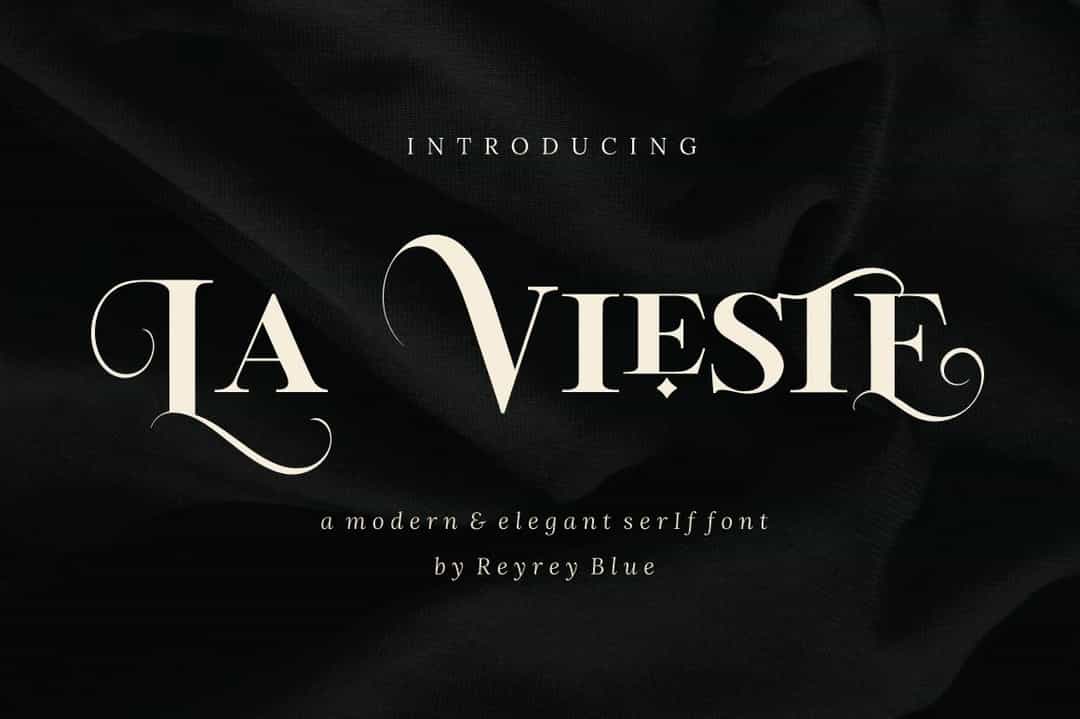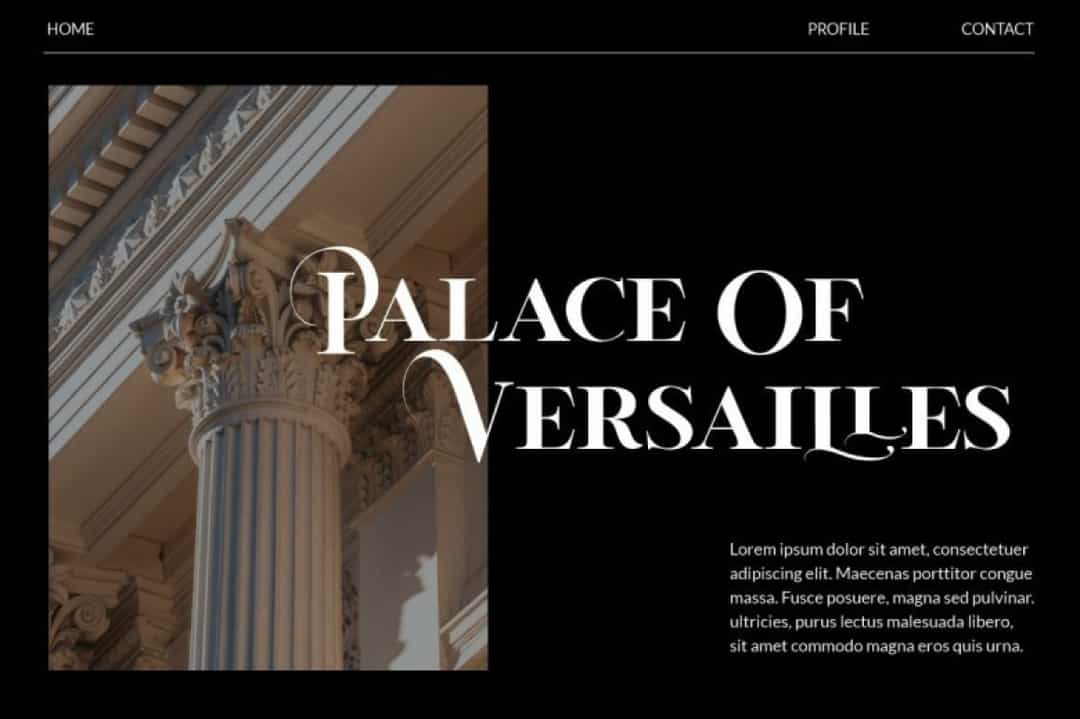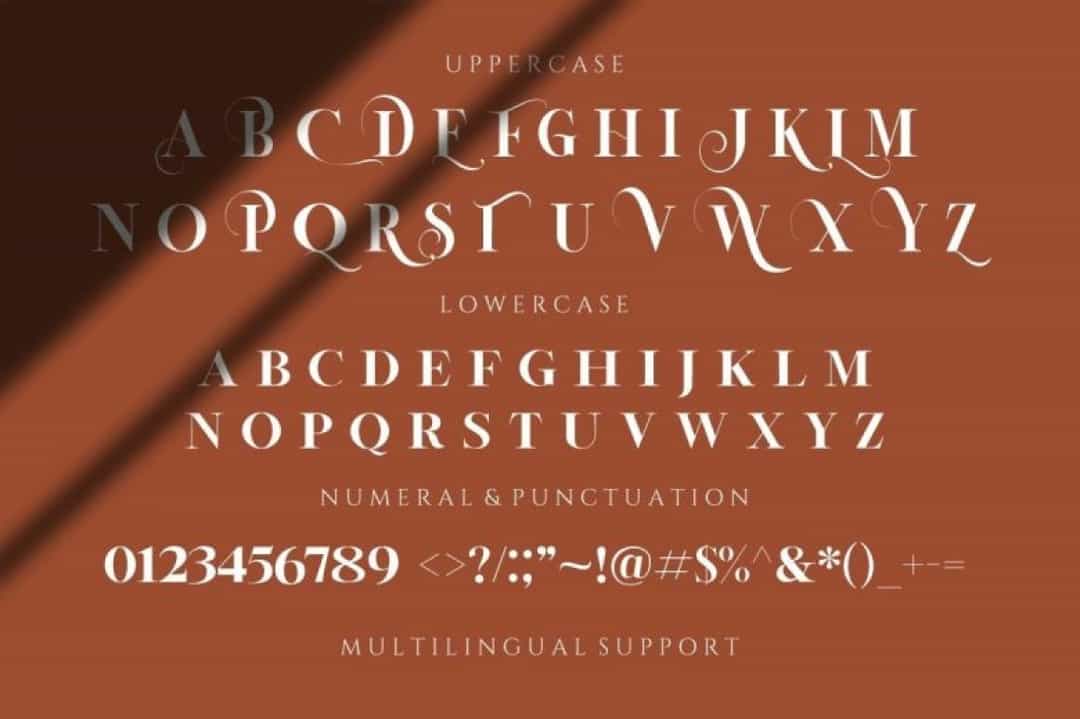
La Vieste is an elegant yet distinctive serif font. PUA encoded, you have access to its full suite of glyphs, swashes and characters easily! Be amazed by its incredible versatility – enjoy creating stunning designs!